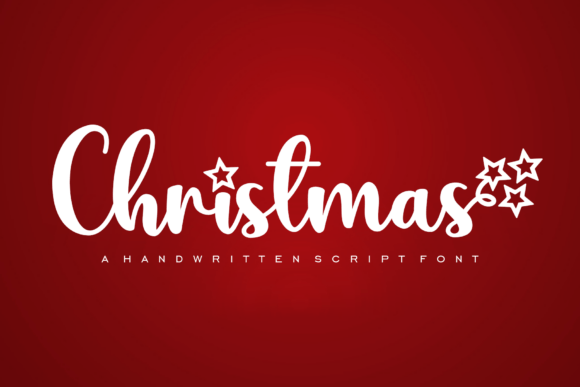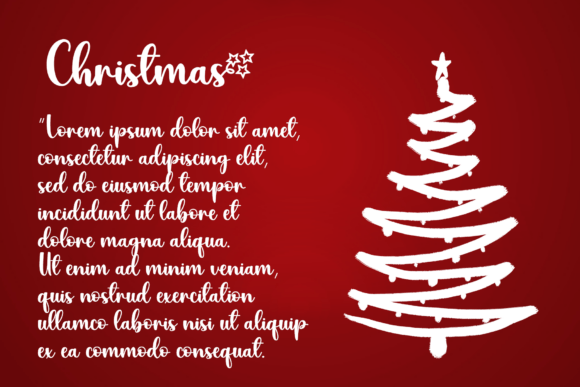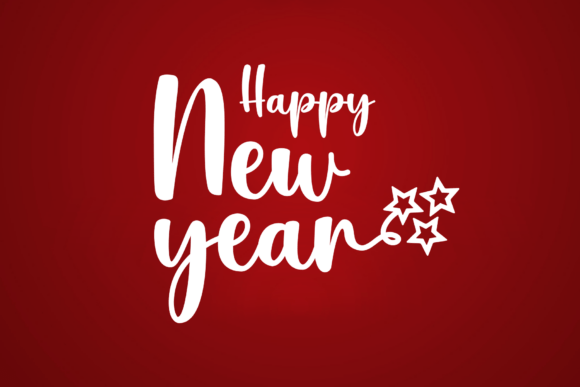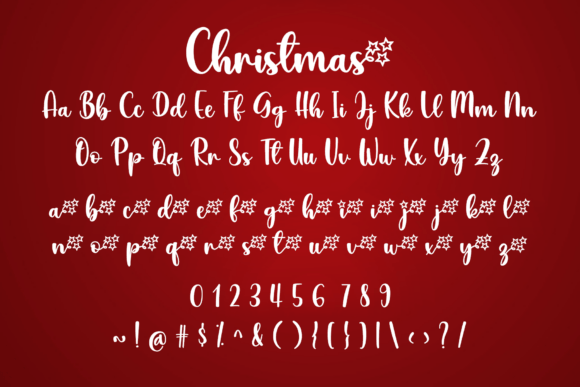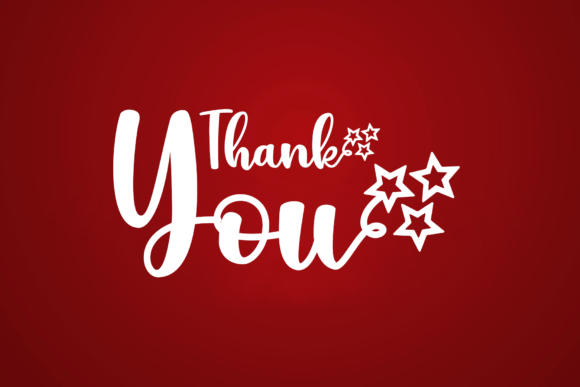
Christmas is a characterful and cute handwritten font. This font dedicated to awesome celebration days is perfect for writing wedding invitations, cards, or any other design that requires a soft, characterful touch! This font is PUA encoded which means you can easily access all the glyphs and ligatures!